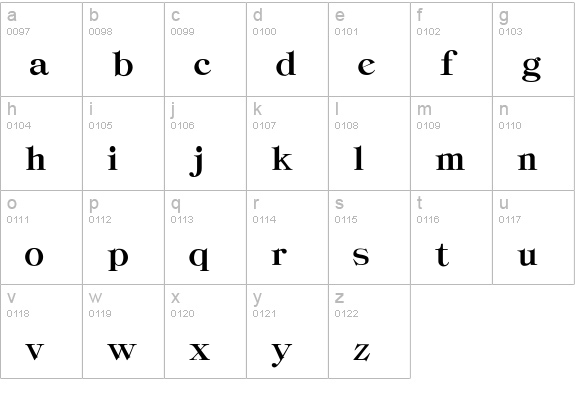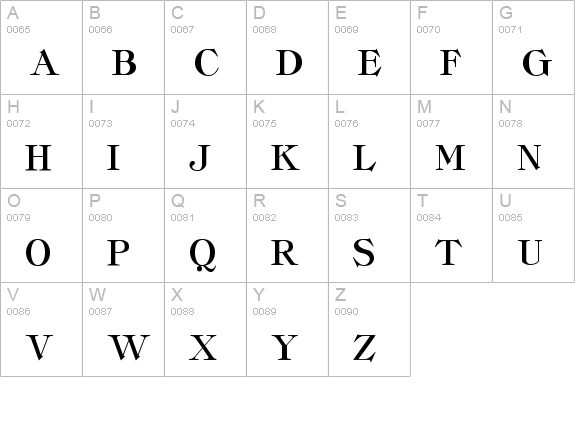
ClassicHeavy-Light Font Details
ClassicHeavy-Light is a refined, elegant variant in the ClassicHeavy typeface family \xE2\x80\x94 well suited to elegant body text, refined sub-headings, and luxury branding.
ClassicHeavy-Light font is a timeless and elegant typeface that strikes the perfect balance between boldness and delicacy. Its classic design brings a touch of sophistication to any project, making it ideal for both formal and creative purposes. The combination of heavy and light weights creates a beautiful contrast that adds visual interest and readability to your text. This versatile font is freely available for download at FontsMarket.com, making it accessible to designers, creatives, and enthusiasts alike. Whether you're working on a professional branding project, designing invitations, or creating stunning graphics, ClassicHeavy-Light font is sure to elevate your work with its timeless charm and effortless style. Download it today and add a touch of classic elegance to your designs.